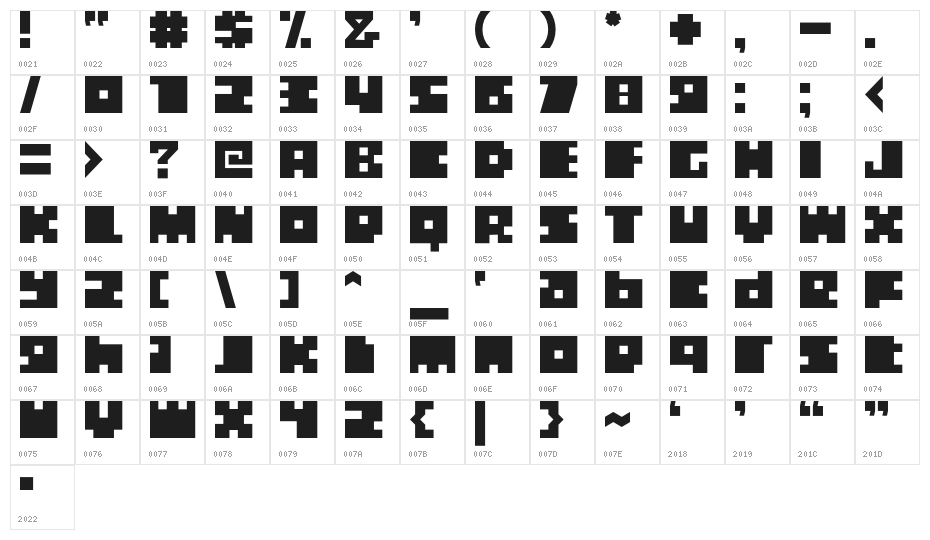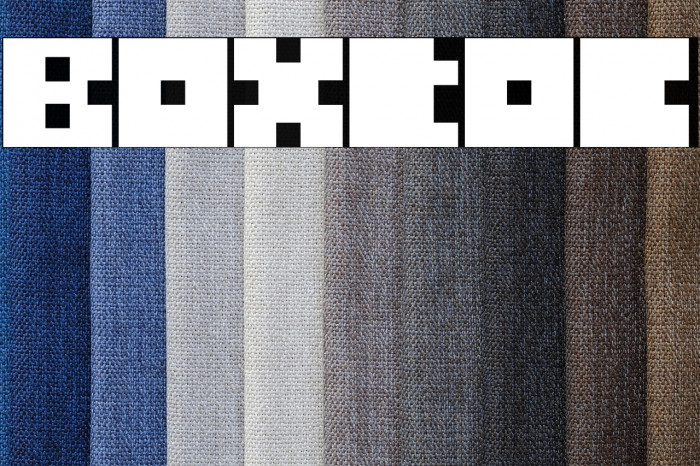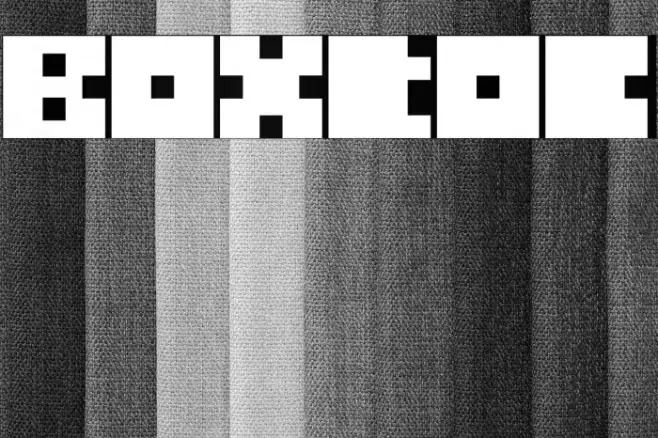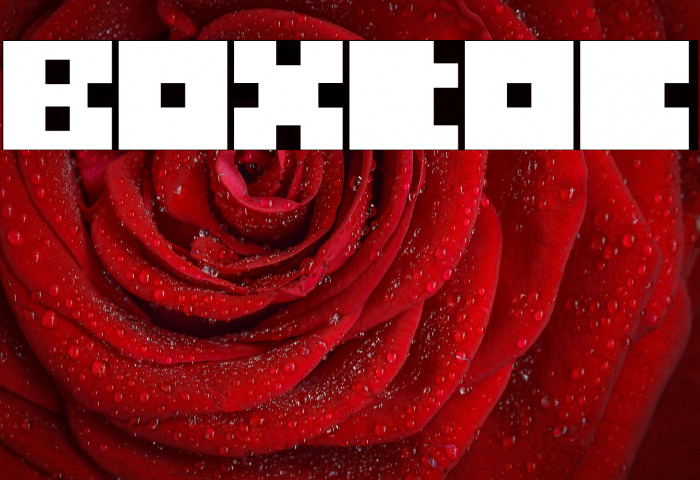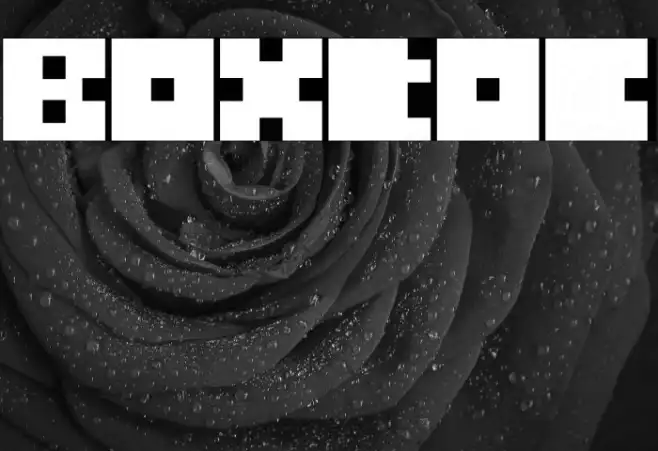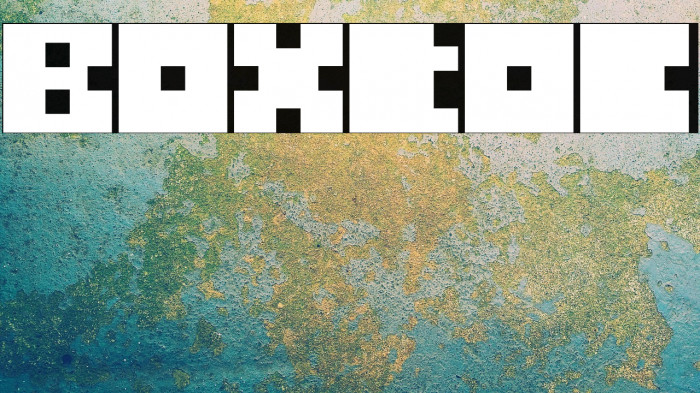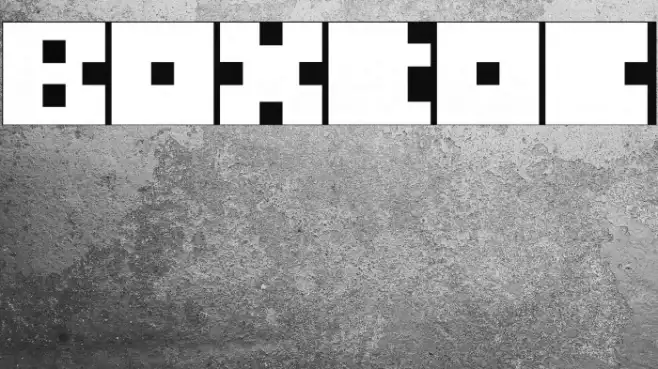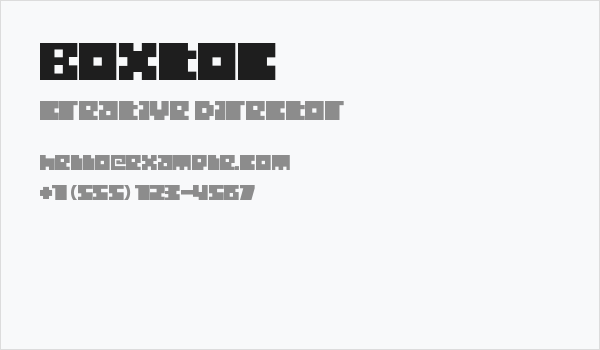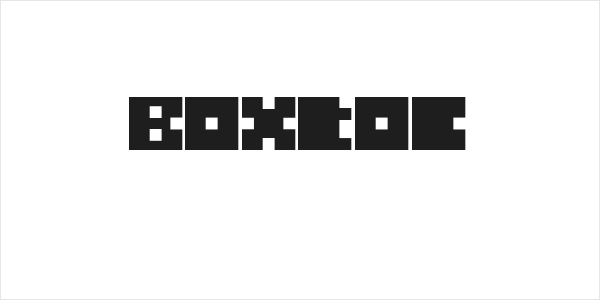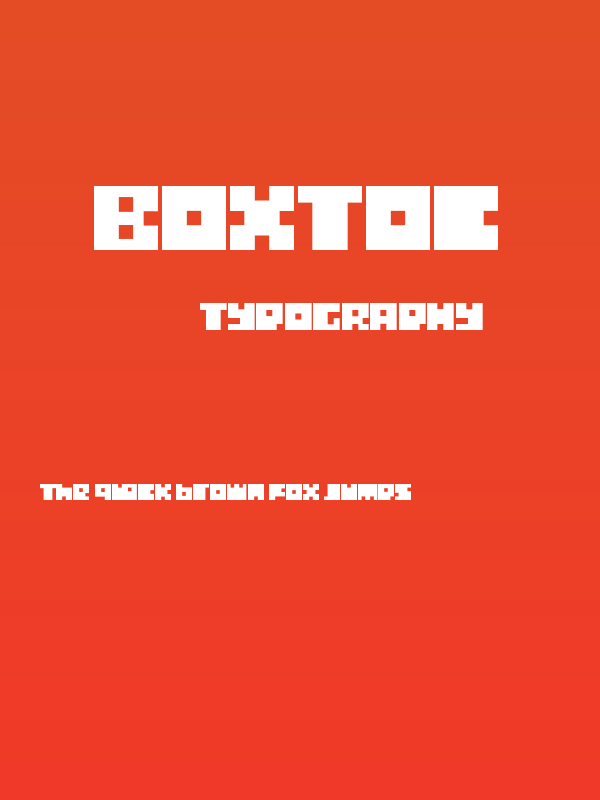
Boxtoc Font
Boxtoc Description
This font features a bold, geometric design with a blocky, pixelated appearance. Each character is constructed from solid, rectangular shapes, giving it a distinctly digital and modern feel. The uniformity in height and width across all characters contributes to its cohesive and structured look. The font's style is reminiscent of early digital displays or video game graphics, making it ideal for projects that require a retro or tech-inspired aesthetic. The characters are tightly spaced, enhancing the compact and dense appearance of the text. The high contrast between the thick strokes and the negative space ensures excellent readability, even at smaller sizes.
| Proposed Projects | Ideal for video game graphics, tech-themed posters, digital art, and retro-style branding. |